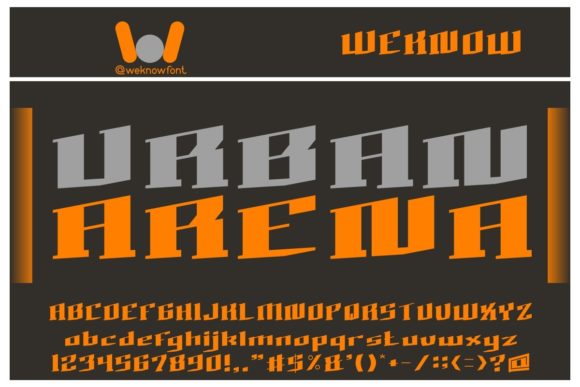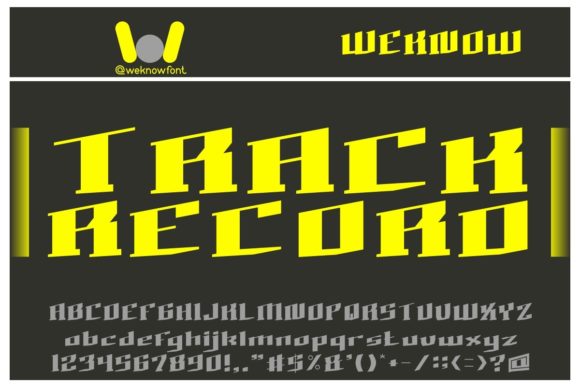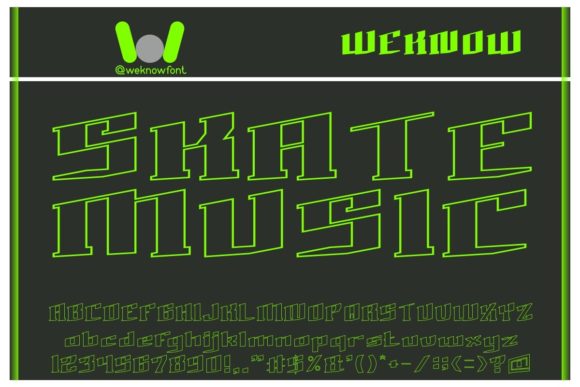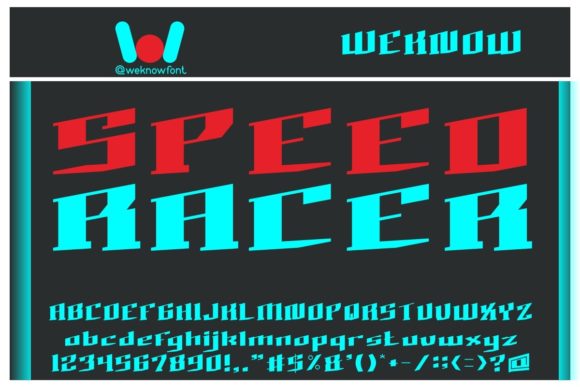
Introducing Bad Boy Font: The Ultimate Futuristic Display Font
In the world of typography, fonts play a crucial role in conveying the tone and personality of a brand or design. For designers and crafters looking to add a touch of futurism to their work, Bad Boy Font is an excellent choice. This cool, bold, and robotic display font is perfect for creating stunning web designs, business cards, and other visual materials that require a modern and edgy look.
What is Bad Boy Font?
Bad Boy Font is a display font designed to make a statement. Its bold and robotic design makes it ideal for use in a variety of applications, from digital designs to print materials. The font’s futuristic look is perfect for brands and designers who want to convey a sense of innovation, technology, and forward-thinking.
Key Features of Bad Boy Font
- Bold and Robotic Design: Bad Boy Font features a bold and robotic design that is sure to grab attention.
- Futuristic Look: The font’s futuristic look makes it perfect for designs that require a modern and edgy touch.
- Highly Versatile: Bad Boy Font can be used in a variety of applications, from web designs to print materials.
- Easily Readable: Despite its bold design, Bad Boy Font is easily readable, making it perfect for use in body text and headlines.
Uses of Bad Boy Font
Bad Boy Font is a highly versatile font that can be used in a variety of applications. Here are some of the most popular uses of this font:
- Web Design: Bad Boy Font is perfect for use in web designs, including website headers, landing pages, and social media graphics.
- Business Cards: The font’s bold and professional design makes it ideal for use in business cards and other print materials.
- Logos and Branding: Bad Boy Font can be used to create stunning logos and branding materials that require a modern and edgy look.
- Advertising and Marketing: The font’s attention-grabbing design makes it perfect for use in advertising and marketing materials, including billboards, posters, and flyers.
Benefits of Using Bad Boy Font
There are several benefits to using Bad Boy Font in your designs. Here are some of the most significant advantages:
- Unique and Attention-Grabbing: Bad Boy Font is a unique and attention-grabbing font that is sure to make your designs stand out.
- Futuristic Look: The font’s futuristic look makes it perfect for designs that require a modern and edgy touch.
- Highly Versatile: Bad Boy Font can be used in a variety of applications, from web designs to print materials.
- Easily Customizable: The font is easily customizable, allowing you to adjust its size, color, and style to suit your design needs.
Tips for Using Bad Boy Font
Here are some tips for using Bad Boy Font in your designs:
- Use it Sparingly: While Bad Boy Font is a stunning font, it’s best to use it sparingly to avoid overwhelming your design.
- Pair it with Other Fonts: Bad Boy Font can be paired with other fonts to create a unique and visually appealing design.
- Adjust its Size and Color: Adjust the font’s size and color to suit your design needs and ensure it stands out.
Bad Boy Font is a cool, bold, and robotic display font that is perfect for designers and crafters looking to add a touch of futurism to their work. Its highly versatile design makes it suitable for use in a variety of applications, from web designs to print materials. With its unique and attention-grabbing design, Bad Boy Font is sure to make your designs stand out.